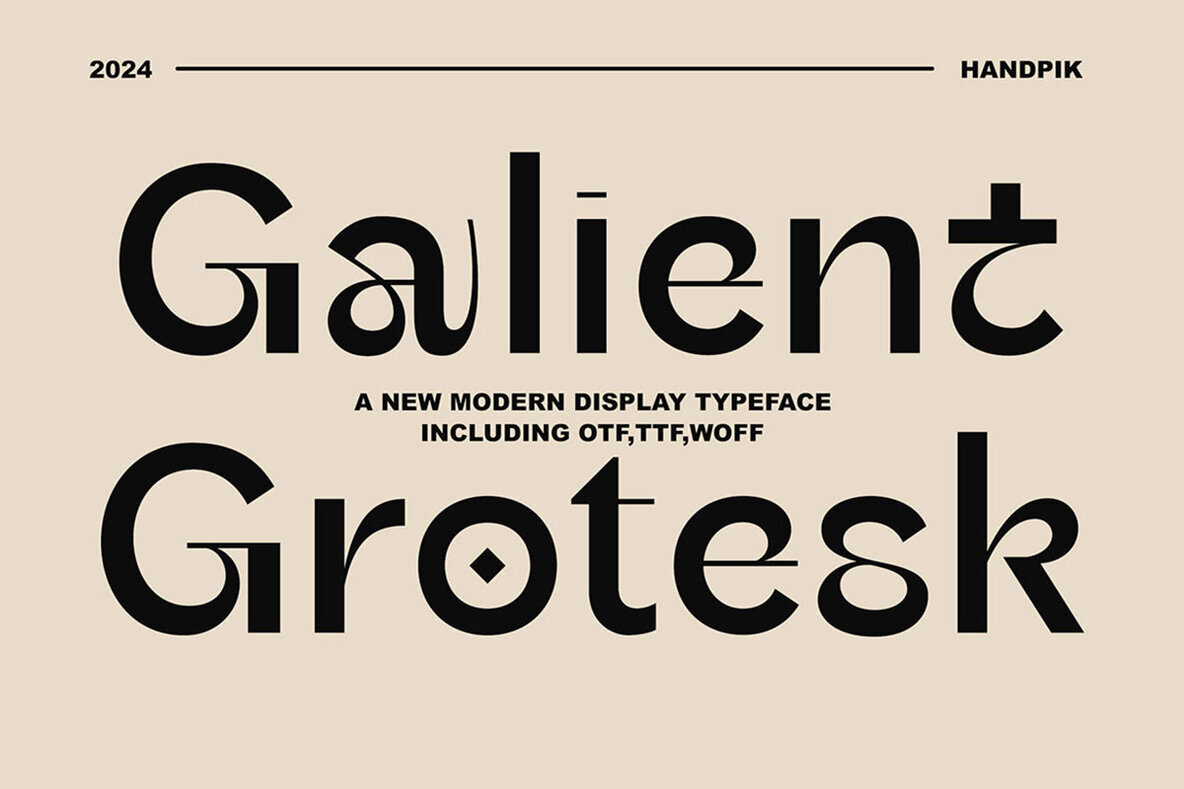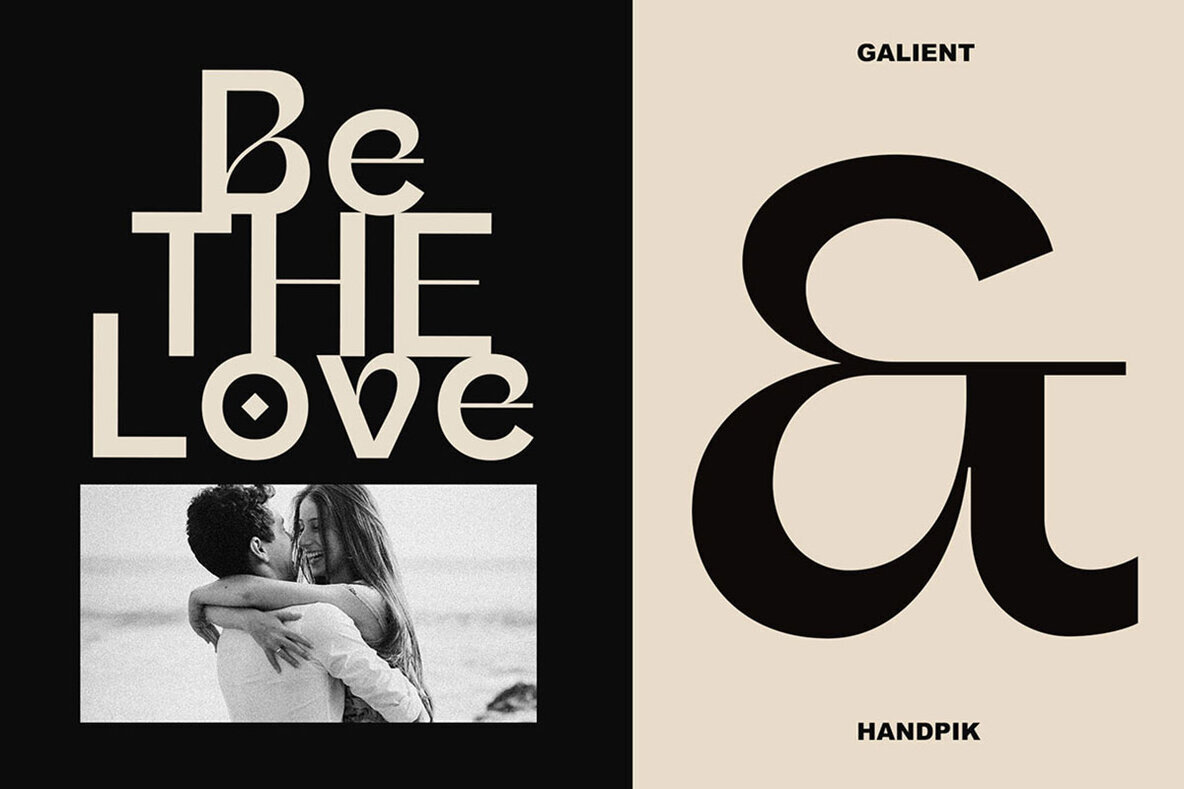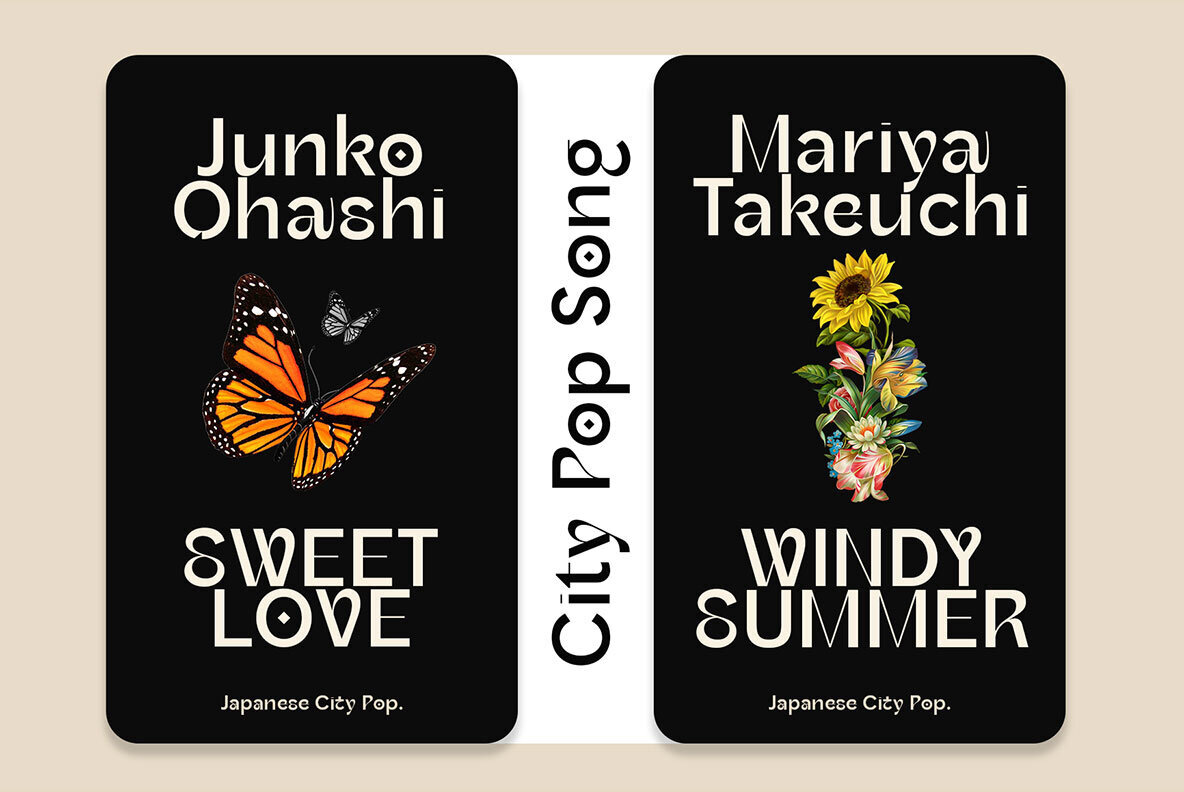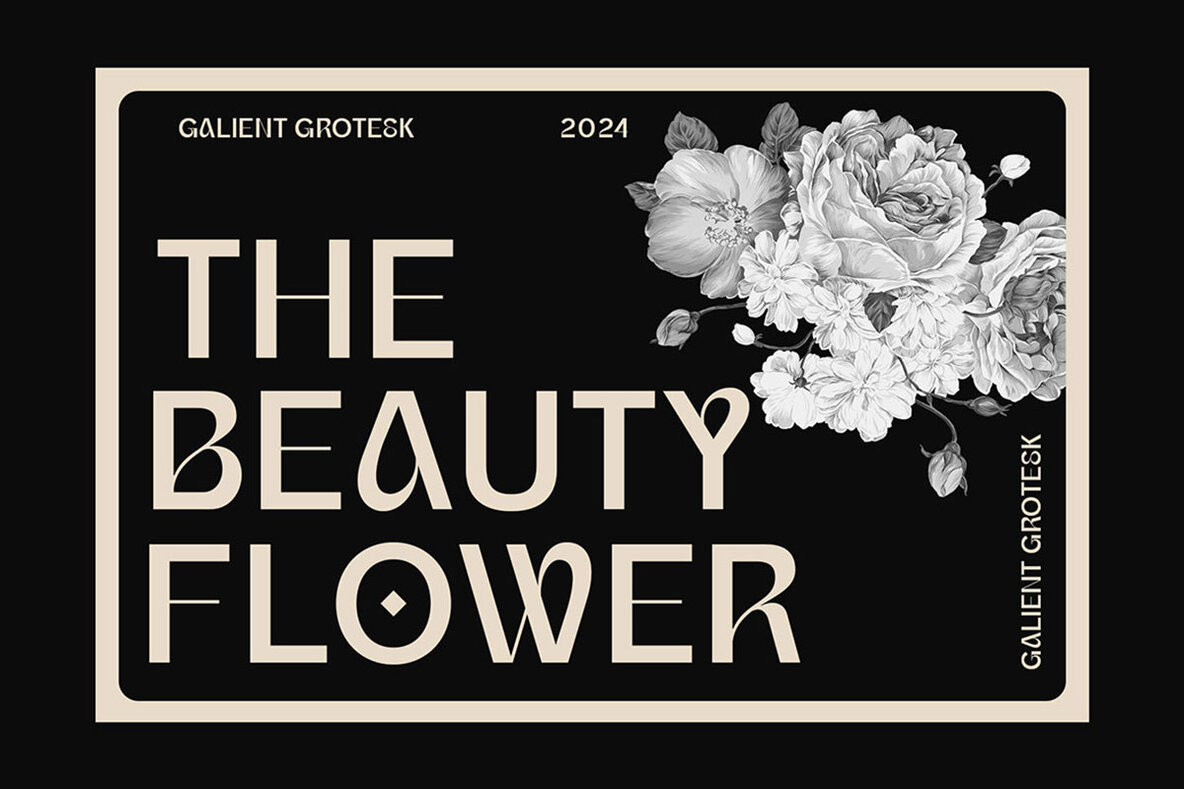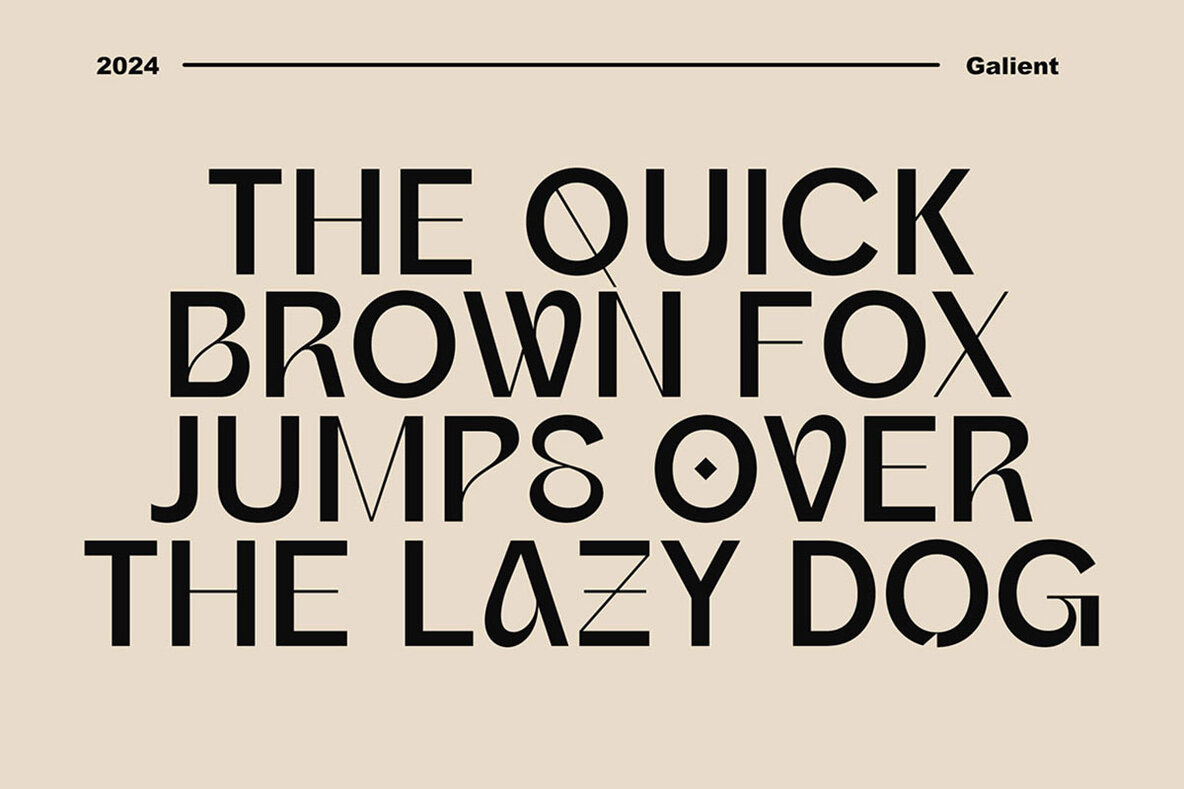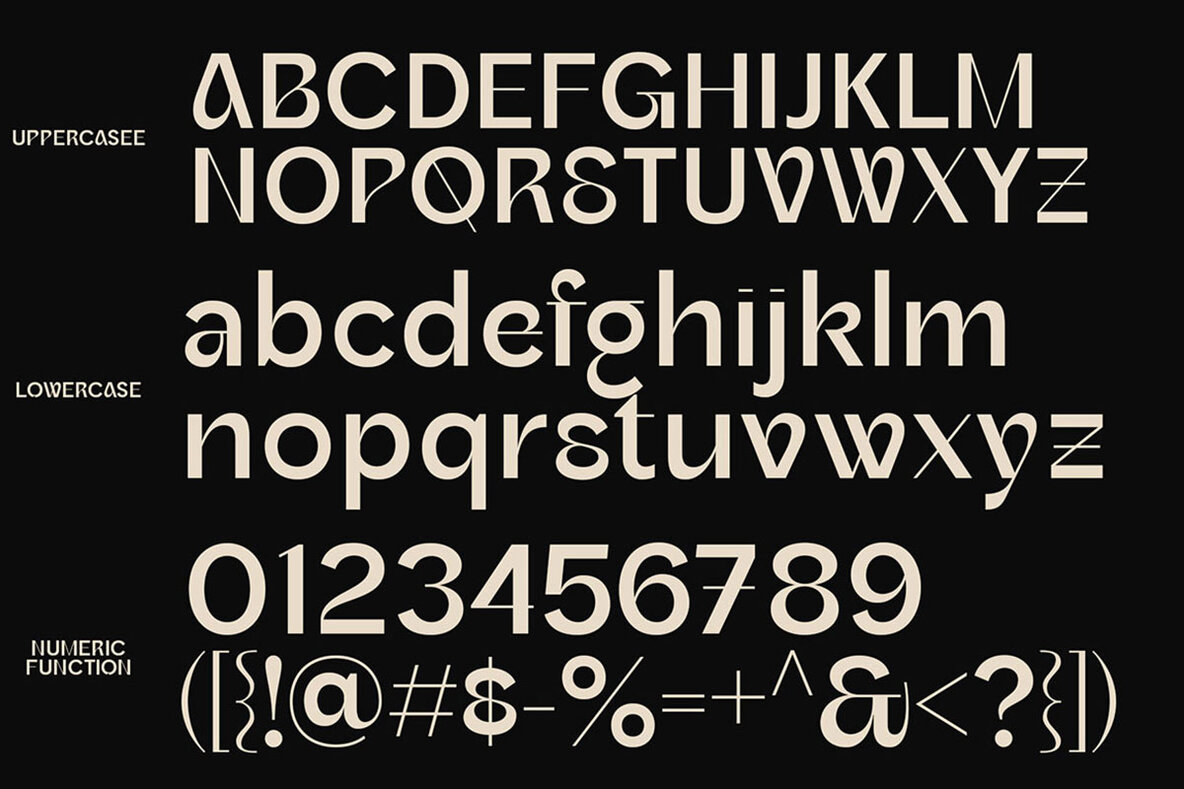
Galient Grostesk Font
Galient Regular
Galient Grotesk is sans-serif font features a modern, bold, and clean design that is perfect for contemporary branding and high-impact design projects. Its geometric shapes and professional look make it ideal for use in business materials, web design, posters, advertising, and headlines where legibility and style are paramount. Feature